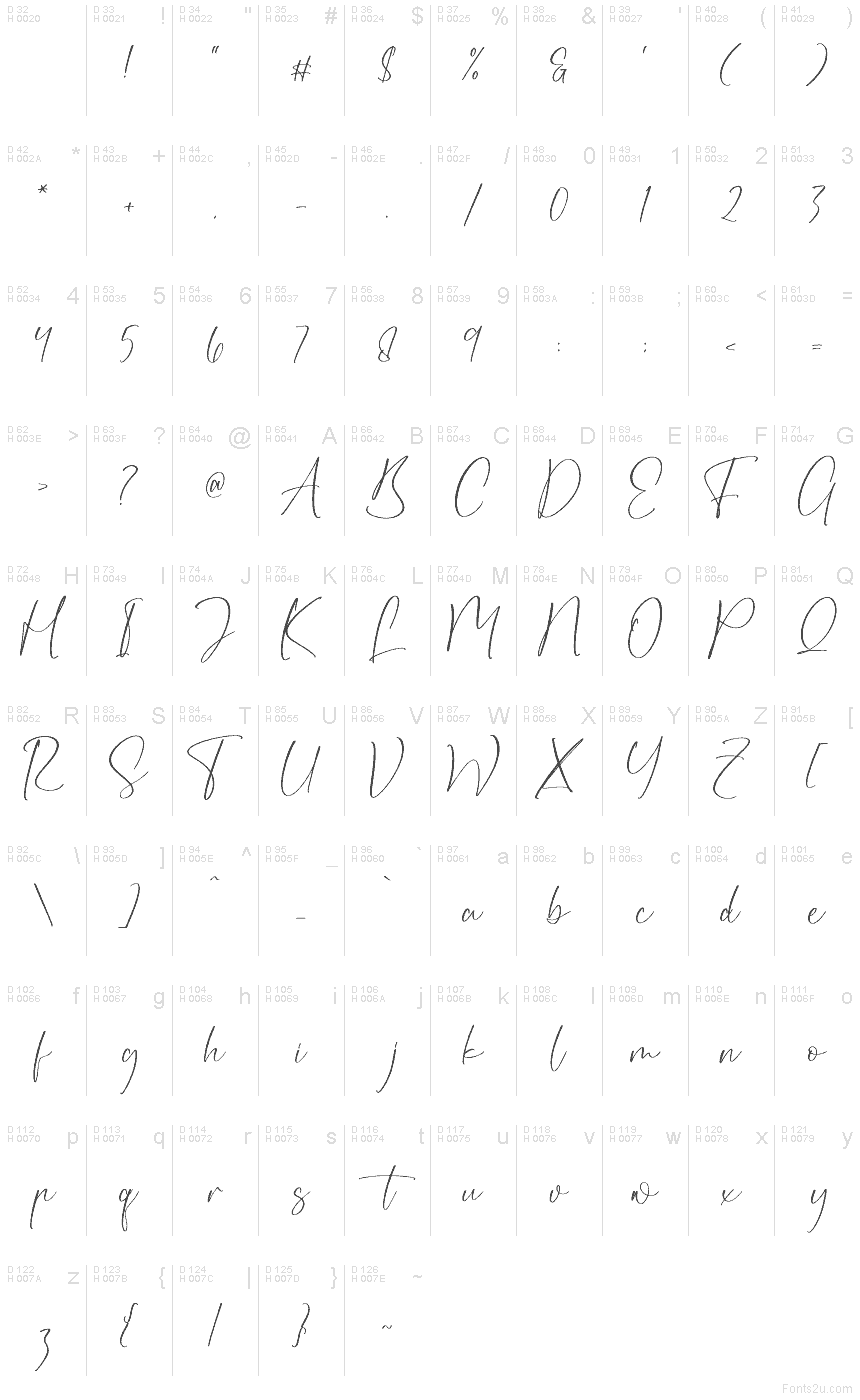
Florethila
Florethila font is a light handwritten typeface designed by Storytype Studio in a sophisticated, elegant, and modern script style. It has refined, graceful curves that are highly expressive and flowing with an unusual touch of mystery. This is not what we see every day which adds to its distinctive nature.
Although many will appreciate the font once you only present it to them, it can be used where it shines best such as logos of luxury brands (famous or local), greeting cards, journals, invitations (including wedding stationery), or branding and packaging design for high-end products.